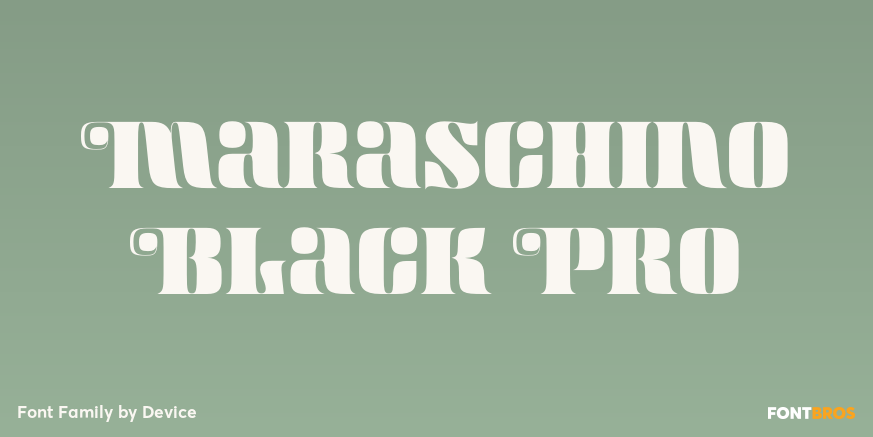
Maraschino Black Pro
About Maraschino Black Pro
DF Maraschino Black – A sleek, sophisticated swash capital font with elegant thick and thin weight distribution. Bold yet poised, direct yet refined. The swash capitals are intended for use at the beginnings of words only – best not to set this in ALL…